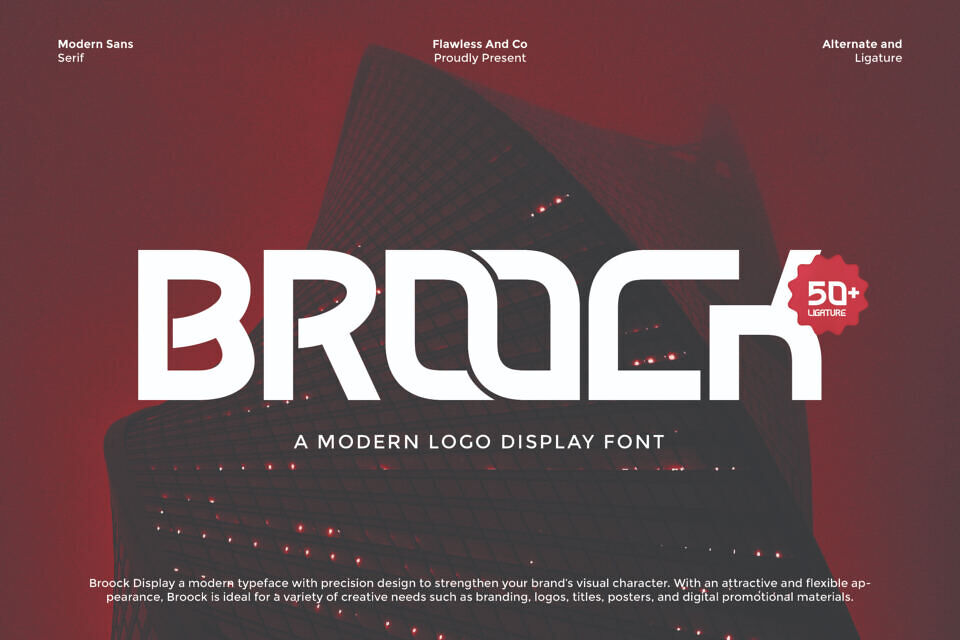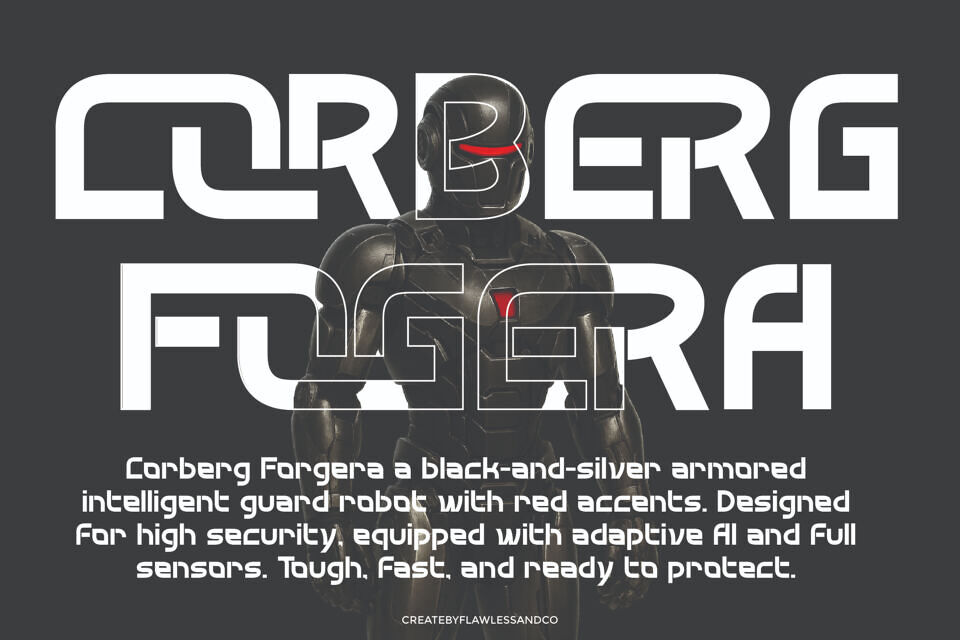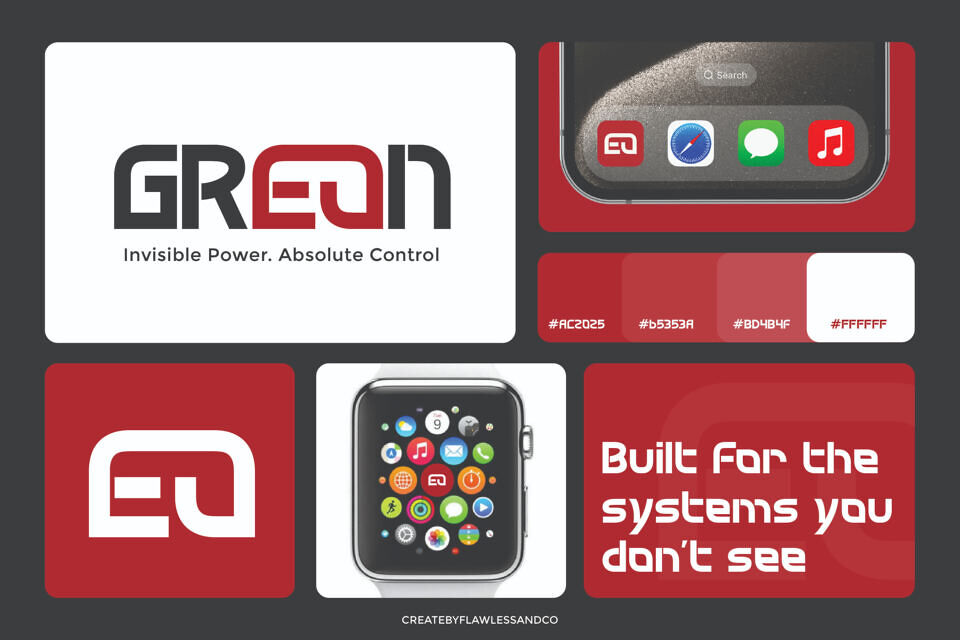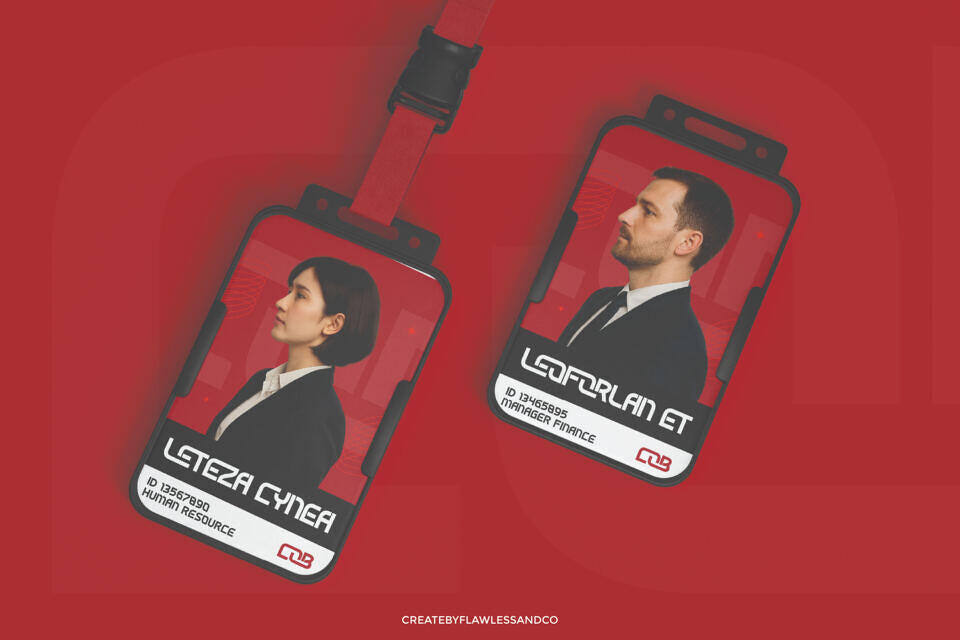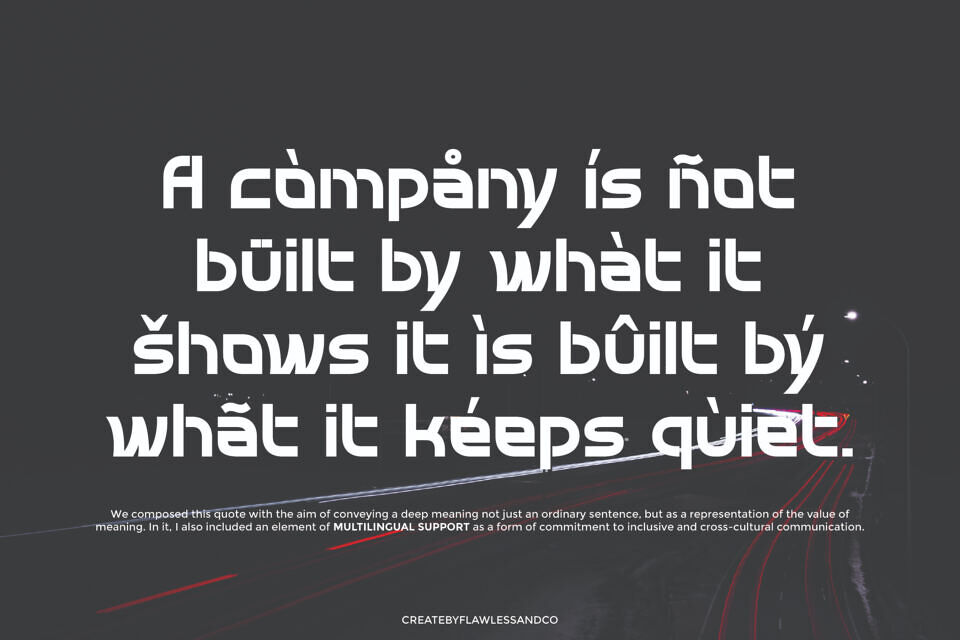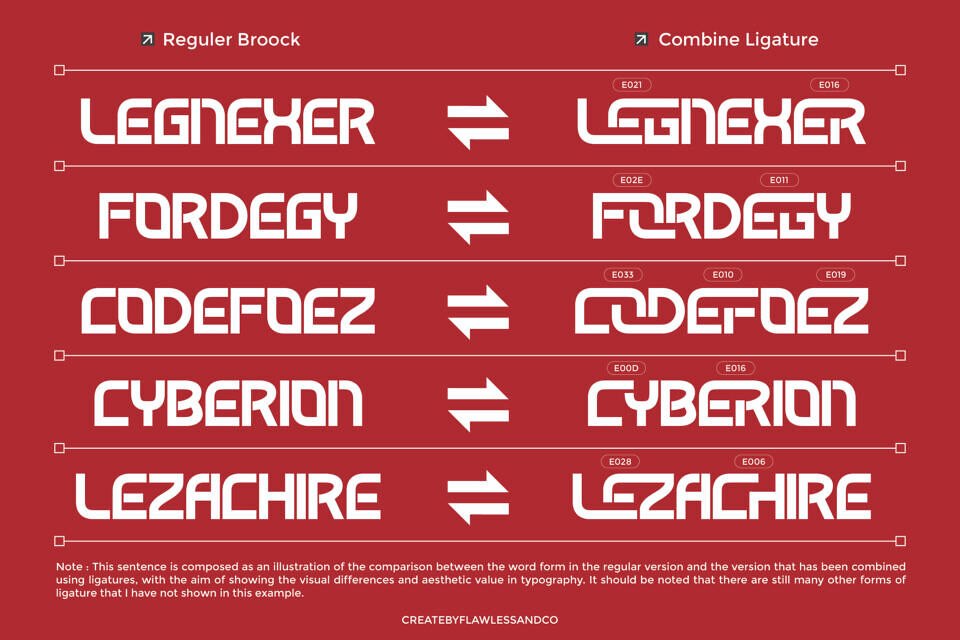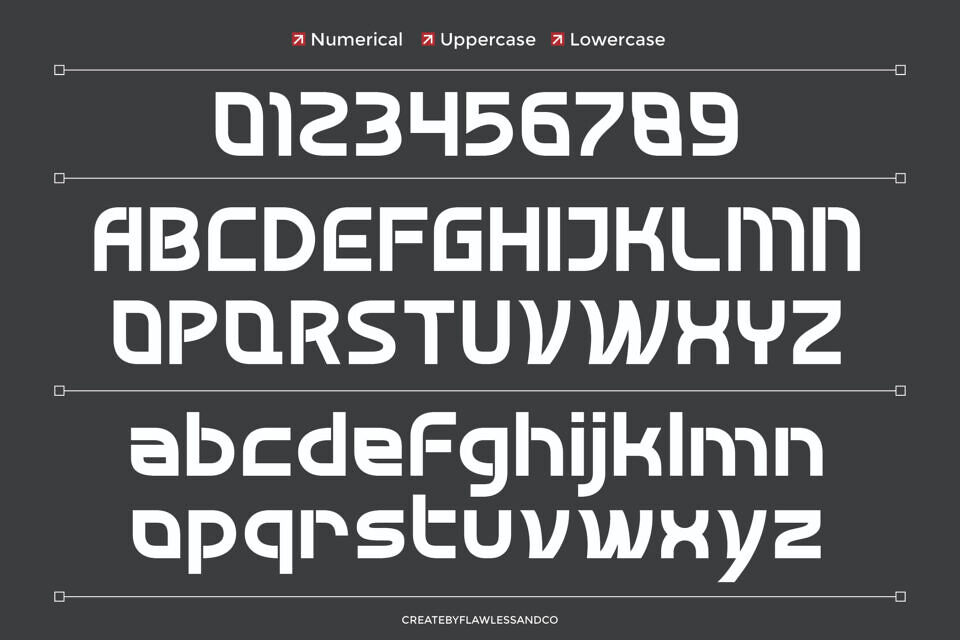
Broock Font
BROOCK is a modern logo display font designed with precision and bold character to elevate your brand identity. Its clean structure and futuristic form make it a standout choice for creative professionals.
Packed with 50+ ligatures and alternates, BROOCK brings flexibility and originality to every project. Whether for logos, branding, posters, or digital visuals, BROOCK is built to make a statement with impact and clarity.